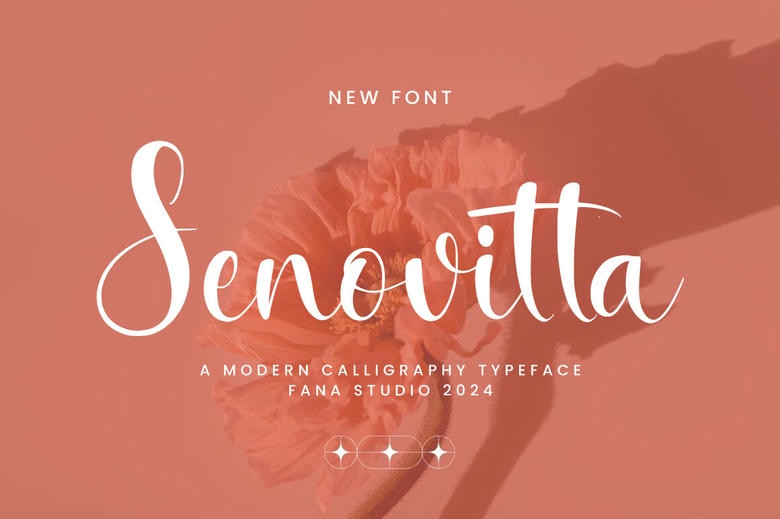
Senovitta Font
Presenting Senovitta Script font style, a beautiful Font Style that you always wanted to use. This beautiful script font gives your personal touch to your latest art project with elegance, class and modernity. This font is perfect for many projects, logos & branding, invitations, stationery, wedding designs, social medial posts, advertisement, product packaging, product designs, labels, photography, watermark, special events everything that needs handwriting taste.
Senovitta Calligraphy Script Font